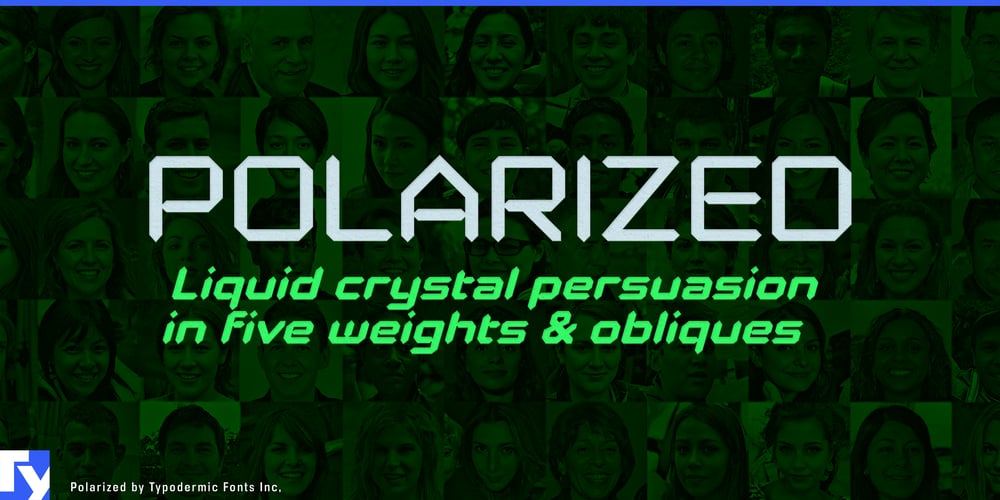
Polarized
Polarized font
Polarized Font Family was designed by Ray Larabie and published by Typodermic. Polarized contains 10 styles and family package options. Polarized isn’t just a typeface—it’s a digital love letter to the LCD displays that once united us all. Born from a deep-seated passion for those iconic seven-segment digits, this font bridges the gap between nostalgia and innovation, offering a typographic olive branch in our increasingly divided world.Remember the warm glow of your first digital watch? The satisfying click of a calculator? Polarized captures that universal experience, transforming it into a sleek, modern typeface that speaks to our shared technological heritage. Its angular forms and unique corner logic don’t just mimic LCD segments—they elevate them, creating a visual language that’s both familiar and futuristic. In a world where differences often overshadow our commonalities, Polarized serves as a reminder of our collective journey through the digital age. Its Extra-Light whispers of dawn clock radios, while its Bold incarnation shouts with the confidence of stadium scoreboards. Each weight, from Light to Semi-Bold, with their corresponding obliques, represents a different facet of our digital past, present, and future.But Polarized isn’t content to simply recall the past—it’s equipped for the complexities of modern communication. With an arsenal of currency symbols, numeric ordinals, primes, and OpenType fractions, it’s ready to tackle everything from international finance reports to scientific papers. This versatility makes Polarized a unifying force in design, bridging cultures and disciplines with its universal digital aesthetic. Perhaps most remarkably, Polarized speaks more languages than a UN interpreter. Supporting most Latin-based European, Vietnamese, Greek, and Cyrillic-based writing systems, it’s a true polyglot. From Afaan Oromo to Zuni, Polarized ensures that the nostalgic charm of segmented displays is accessible across borders and cultures.In a polarized society, choose Polarized—and watch as it brings people together, one digital character at a time.